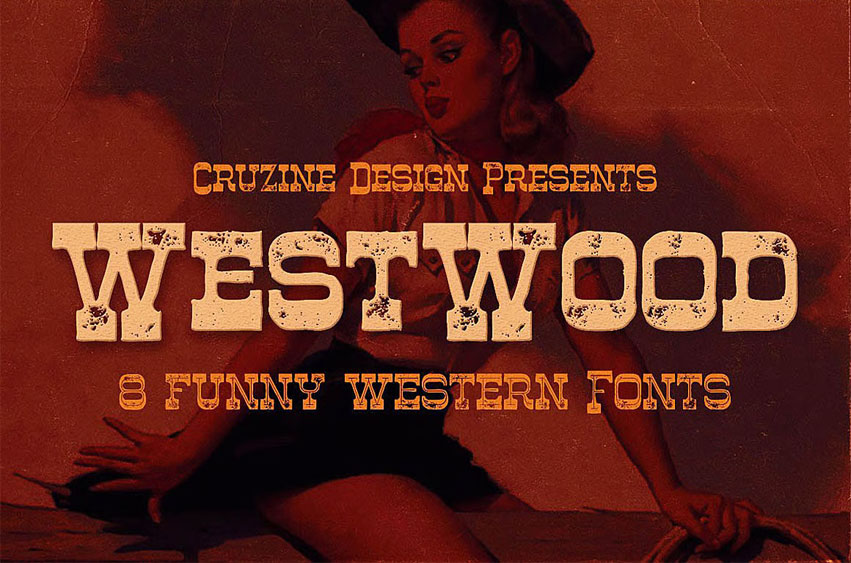
Westwood Funny Western Font
Westwood Funny Western Font Unique & western style display font for your new funny projects. Great for retro/vintage projects!